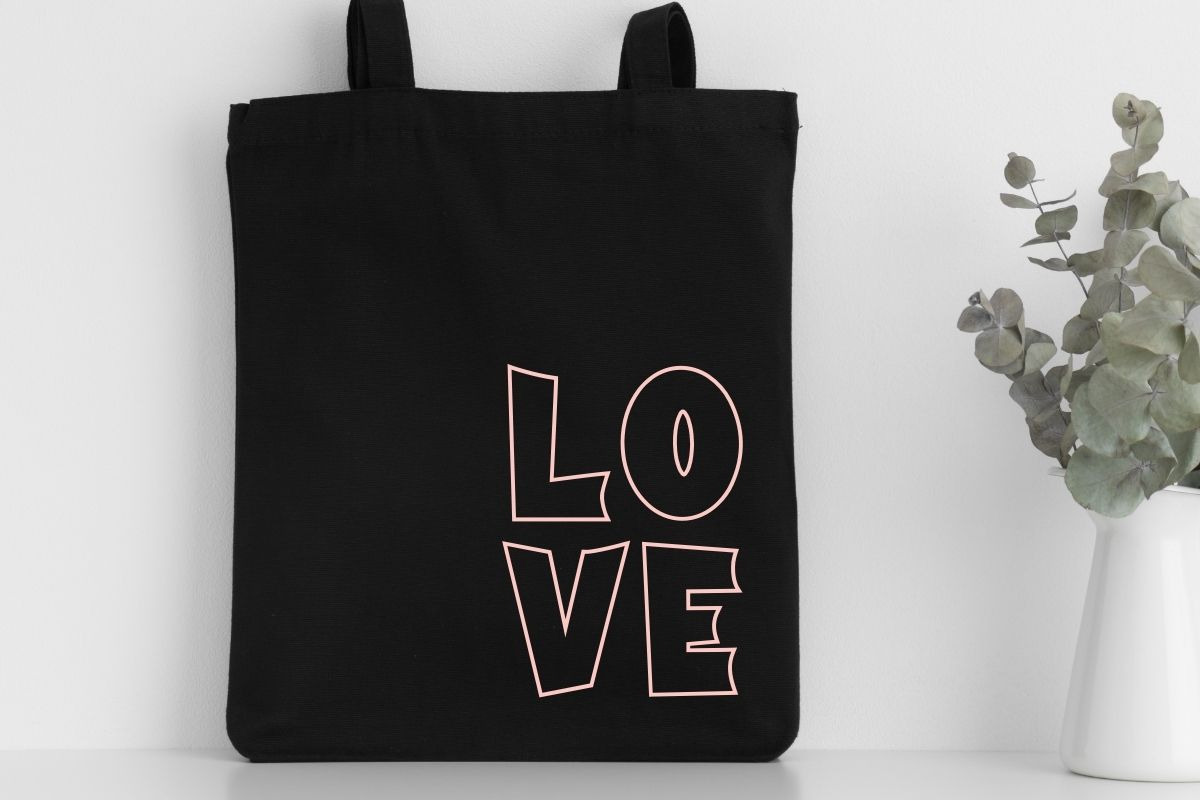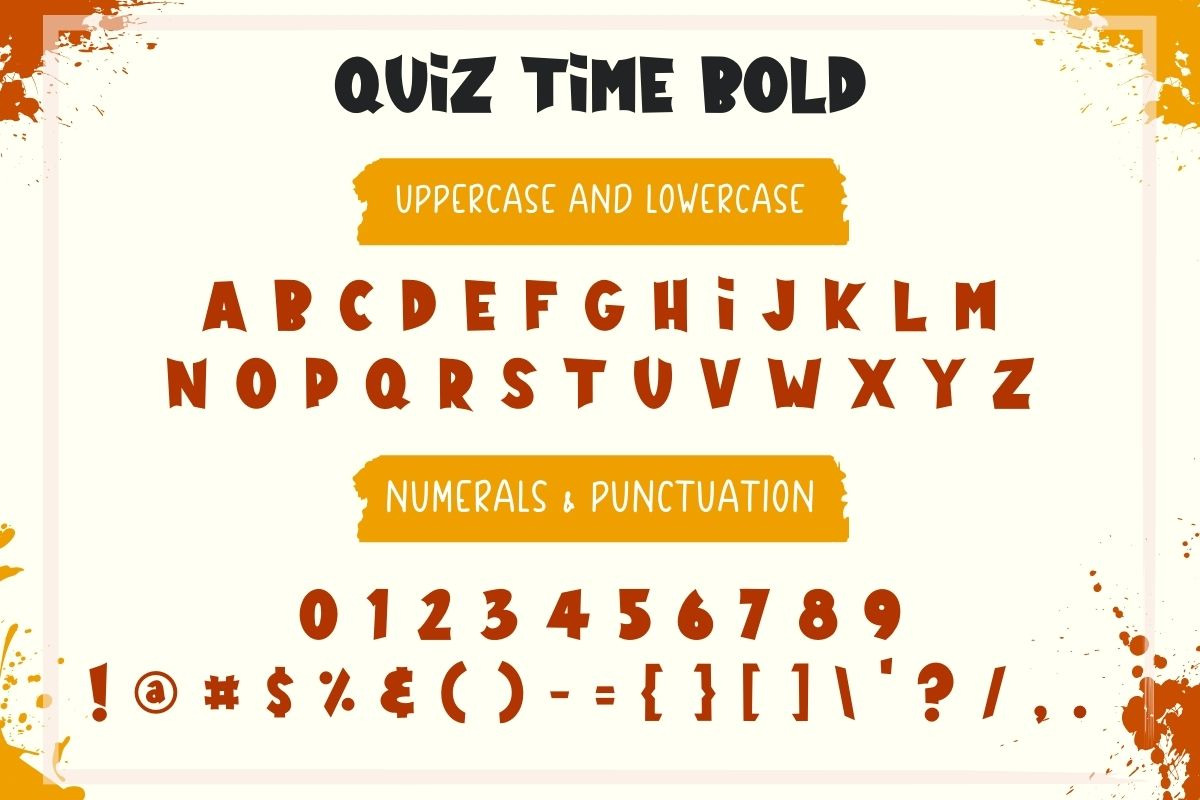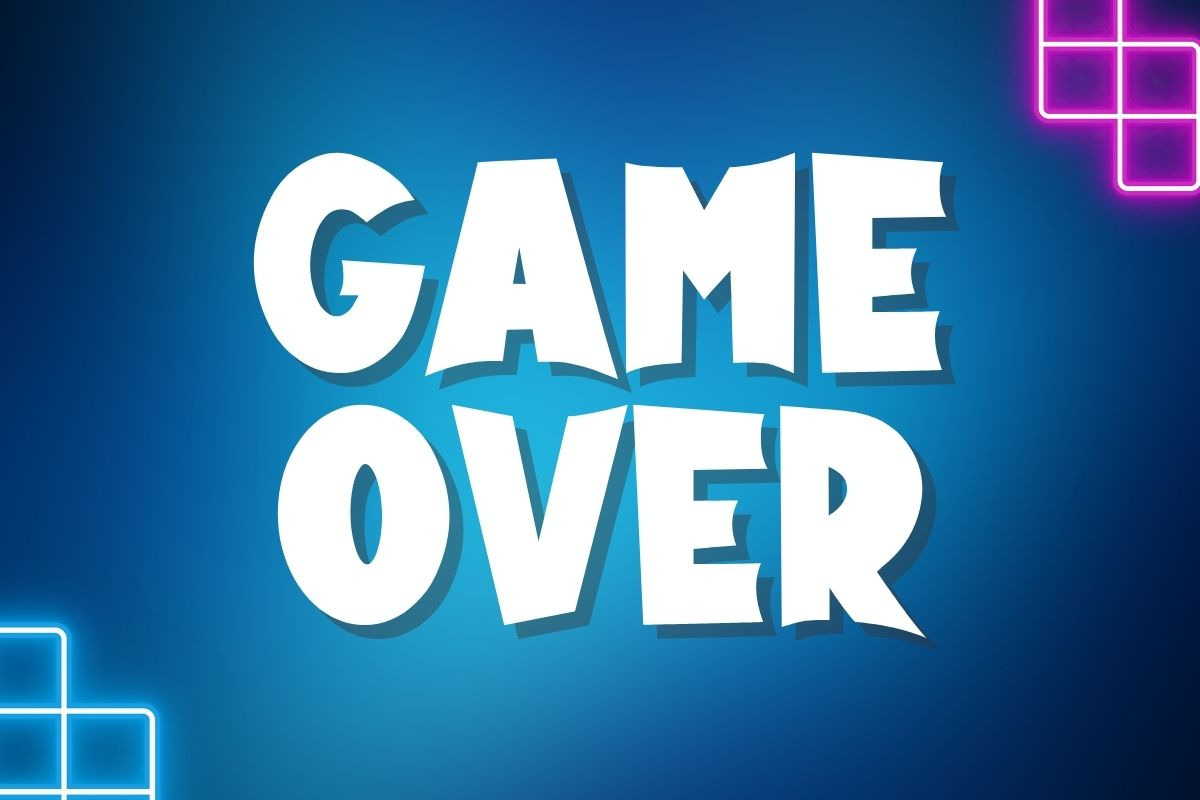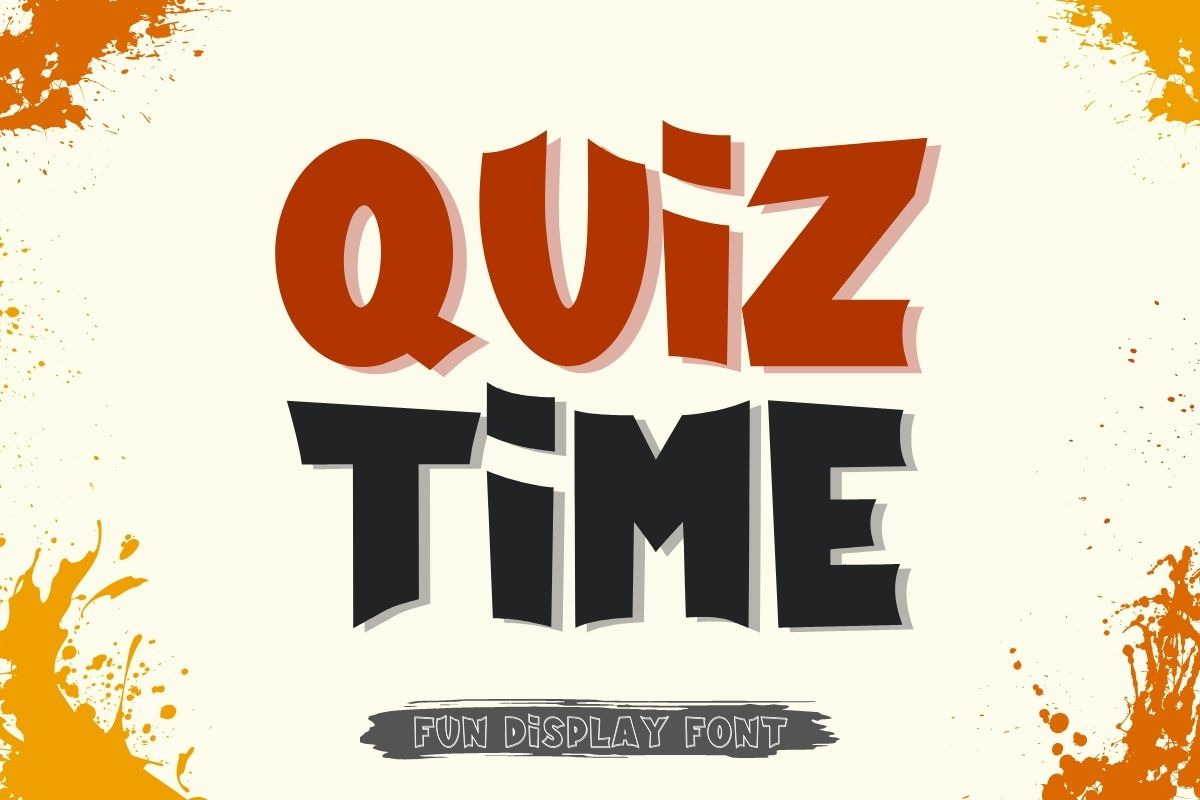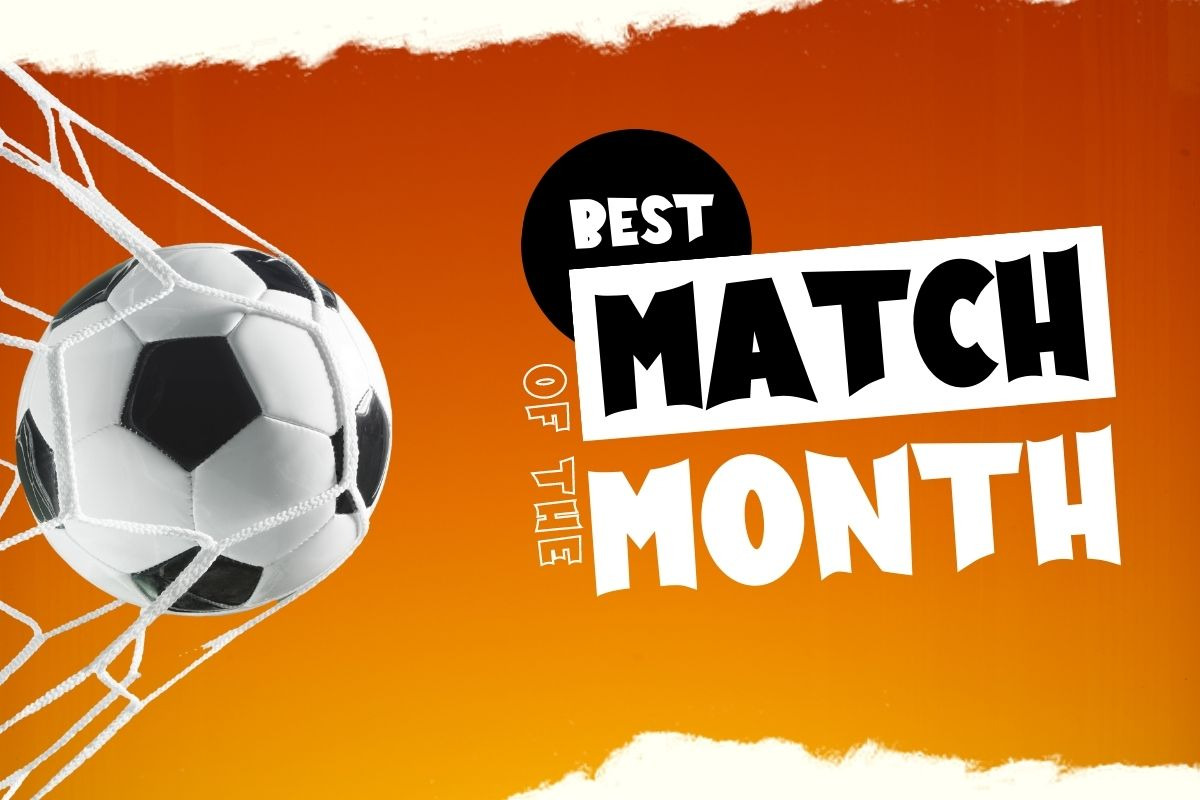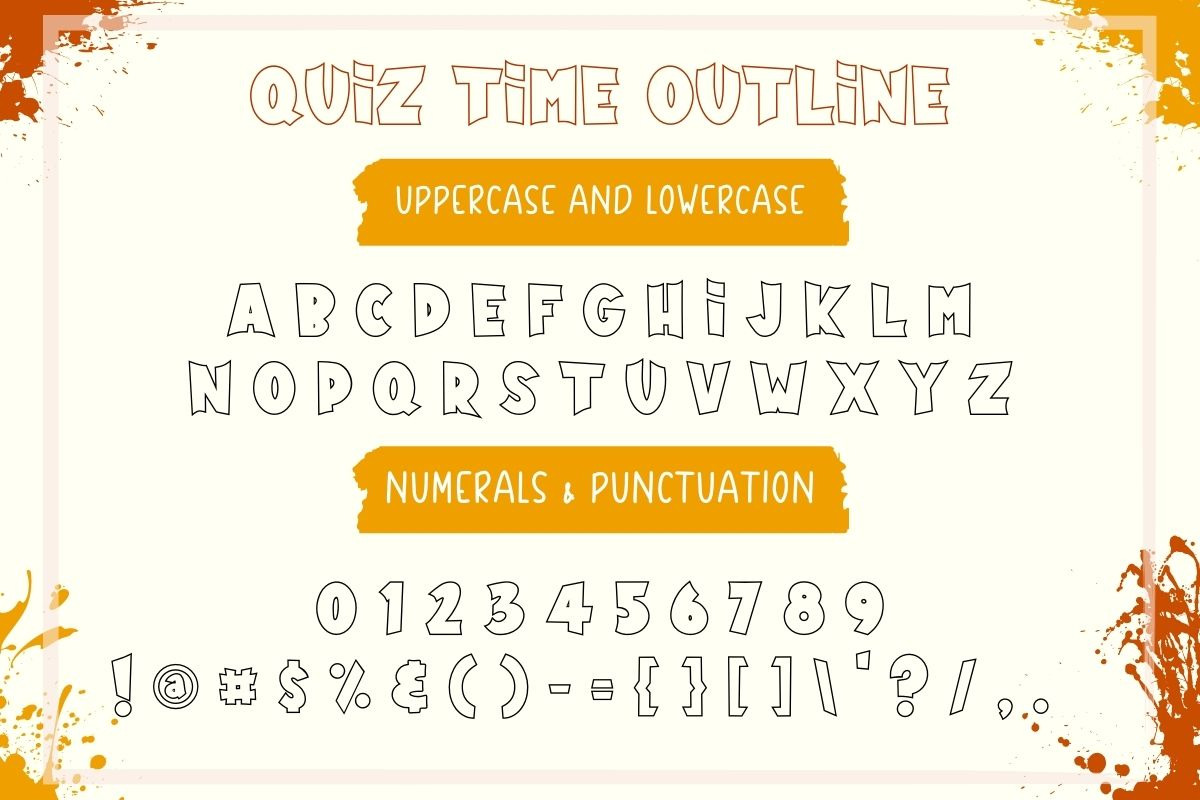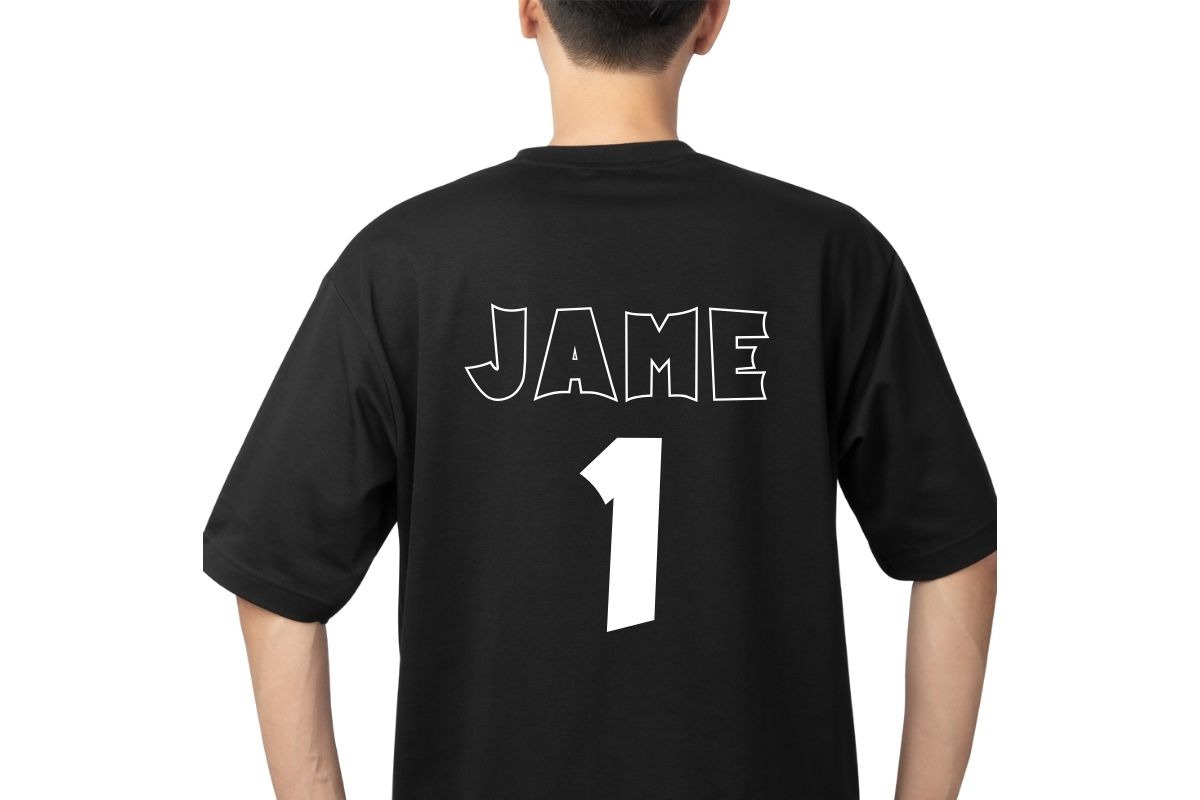
Quiz Time - Display Font
Quiz Time is a bold and captivating display font that demands attention. Its bulky, geometric forms are powerful and striking, making it the perfect choice for titles, headlines, and other attention-grabbing designs.